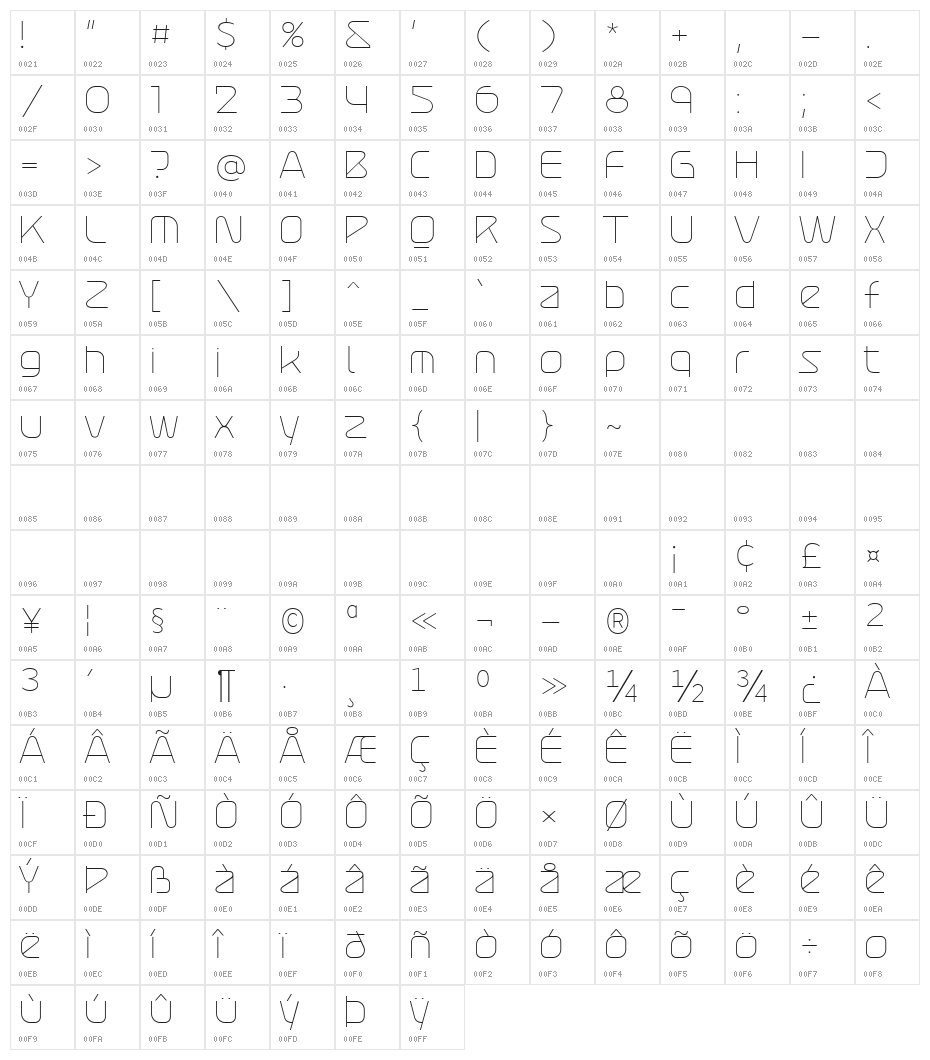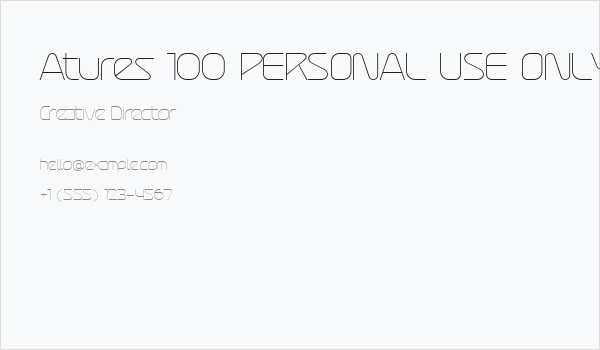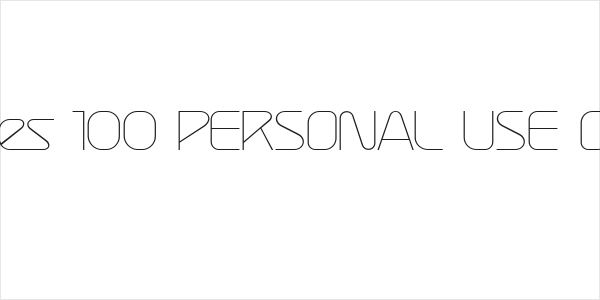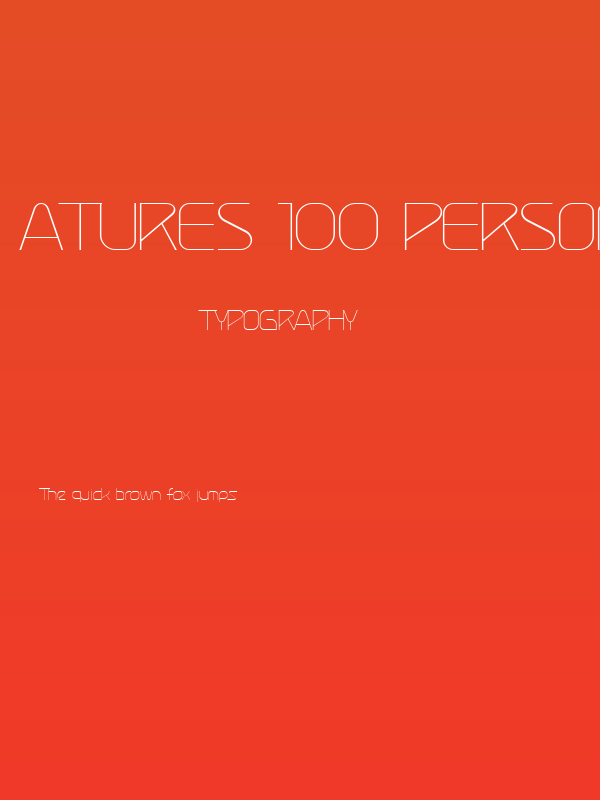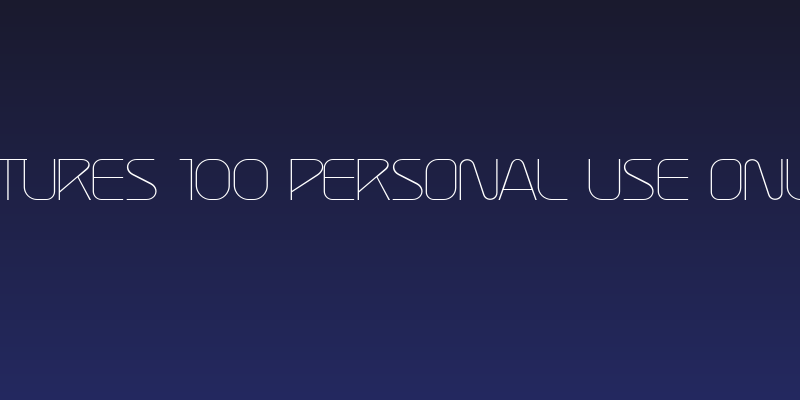
Atures 100 PERSONAL USE ONLY Font
Atures 100 PERSONAL USE ONLY Description
This font features a sleek, modern design with a geometric structure. Each character is crafted with thin, uniform lines that create a minimalist and futuristic appearance. The uppercase letters are distinct with sharp angles and clean lines, while the lowercase letters maintain a consistent style, offering a harmonious balance. The numerals and special characters follow the same design principles, ensuring a cohesive look across all elements. This font's simplicity and elegance make it suitable for contemporary design projects.
| Use Case | Logos, Headlines, Digital interfaces |
| Proposed Projects | Ideal for tech branding, modern art posters, digital interfaces, and minimalist design projects. |